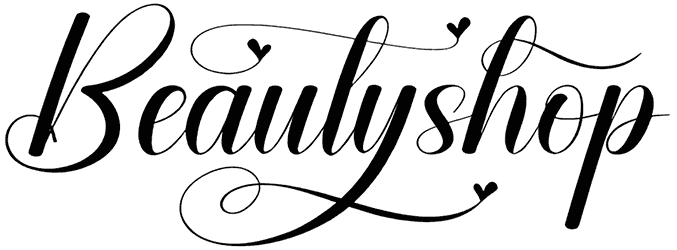
Lovelings is an incredibly distinct, delicate, and timeless holiday font that looks fabulous on a wide set of graphic content, such as greeting cards, gift cards, flyers, packaging, and invitations that require a romantic touch. This all-caps Valentine font would instill a sense of softness, dynamism, and vivacity in the audience’s minds.